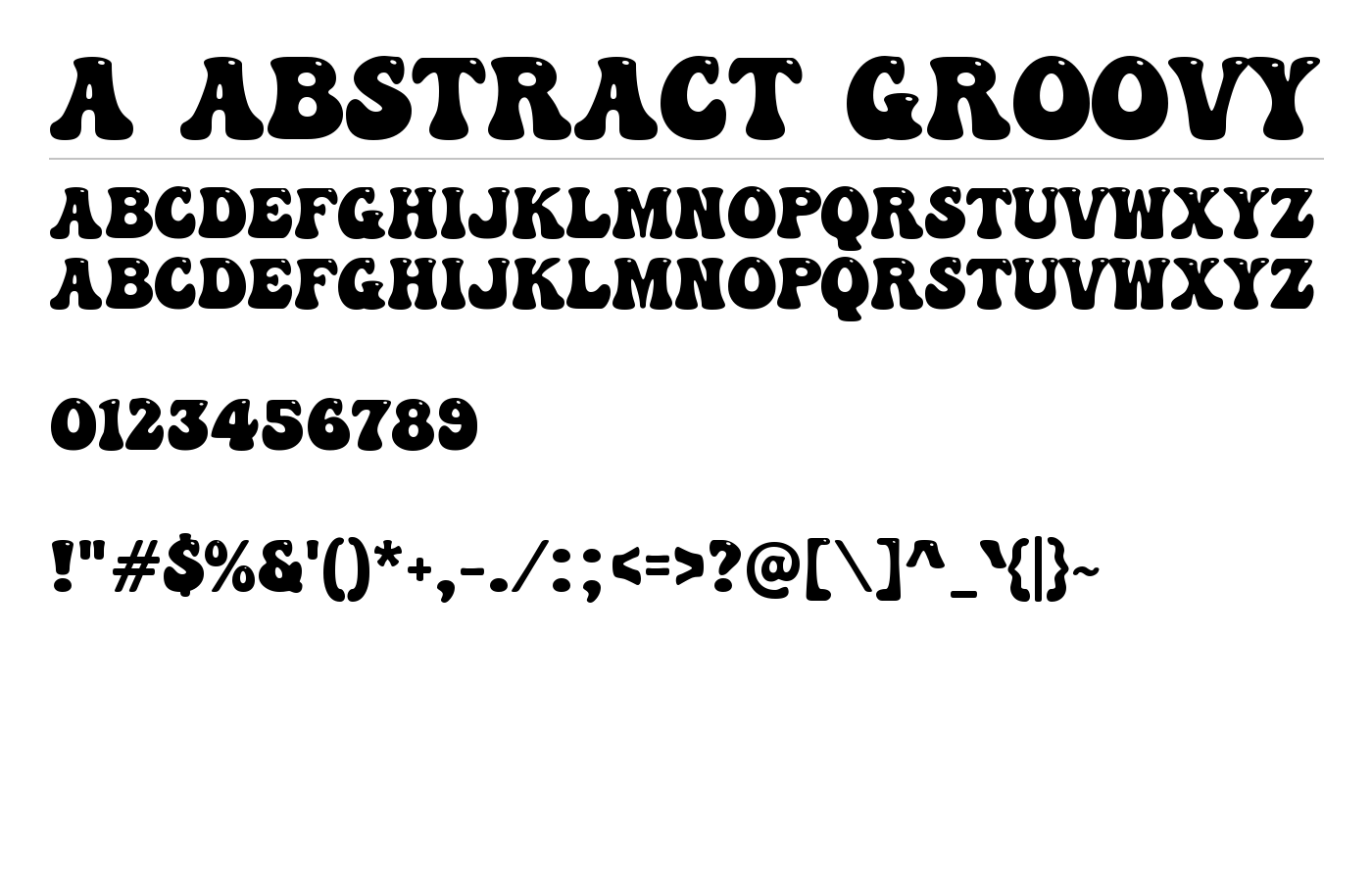
A Abstract Groovy Font is a bold, playful display typeface with thick, chunky letterforms and soft, rounded edges that evoke a fun, retro vibe. Its wide, heavy strokes and whimsical shapes make it perfect for eye-catching headlines, logos, and creative projects that want to convey a lively, vintage-inspired personality. This font works best in bold, decorative uses where a cheerful, groovy atmosphere is desired.
a Abstract Groovy Font
About a Abstract Groovy Font